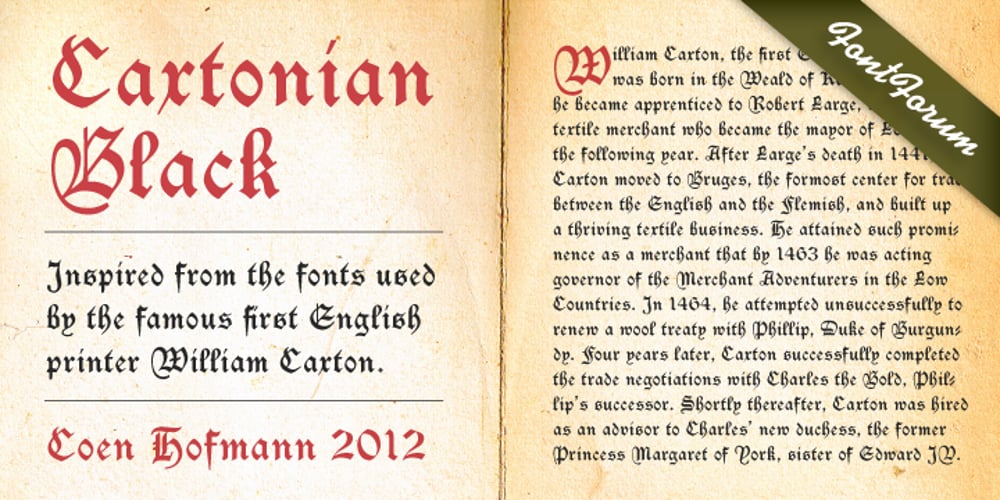
Caxtonian Black Font Family was designed by Coen Hofmann and published by URW Type Foundry. Caxtonian Black contains 1 styles and family package options. Coen Hofmann has rediscovered Blackletter font design and enriches URW’s FontForum with two new and very beautiful fonts: Caxtonian Black and Holland Gothic. Caxtonian Black is a remarkable classical Fraktur inspriced inspired from the fonts used by the famous first English printer William Caxton. Coen Hofmann digitally re-mastered and completed the font for usage with modern technology.